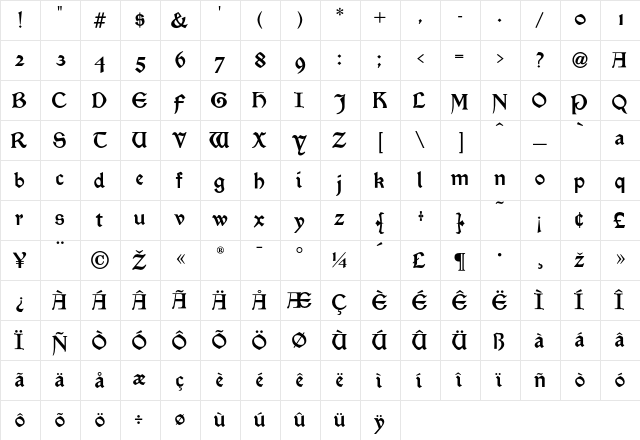
MorrisBlack Regular Font Preview
MorrisBlack Regular
MorrisBlack Regular Font Details
| Foundry | Digitized by Dan X. Solo. Software Dover Publications, Inc |
Design Context for MorrisBlack Typeface
MorrisBlack is a composed and adaptable typeface that performs quietly and consistently across a wide range of design contexts.